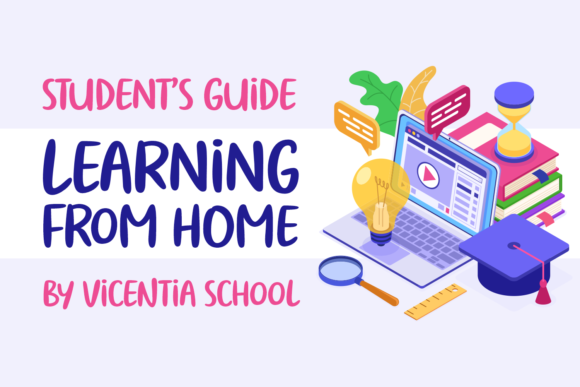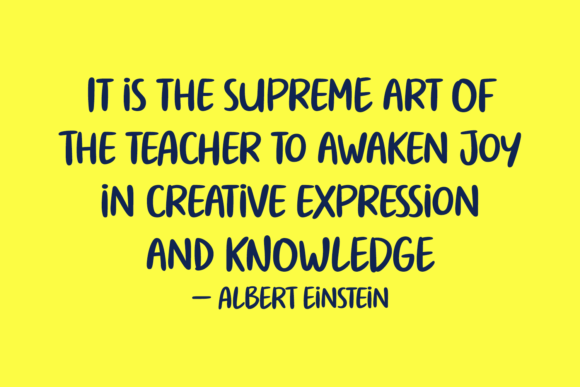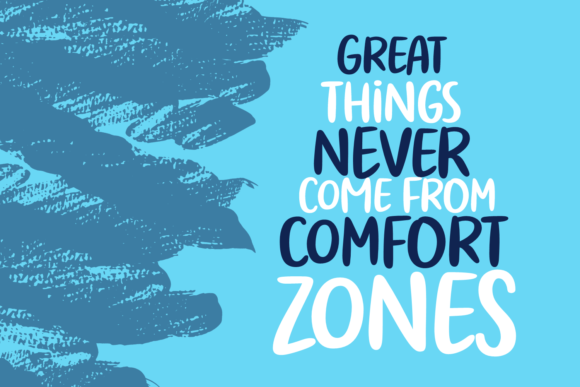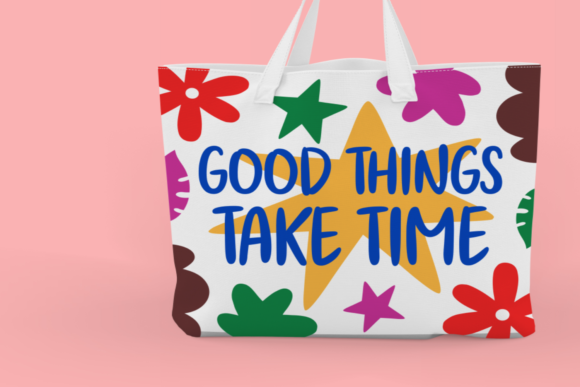
Joyful Learning Font
About Joyful Learning Font
Joyful Learning is a simple and relaxed handwritten font. Designed to become a true favorite, this font has the potential to bring each of your informal projects to the highest level!